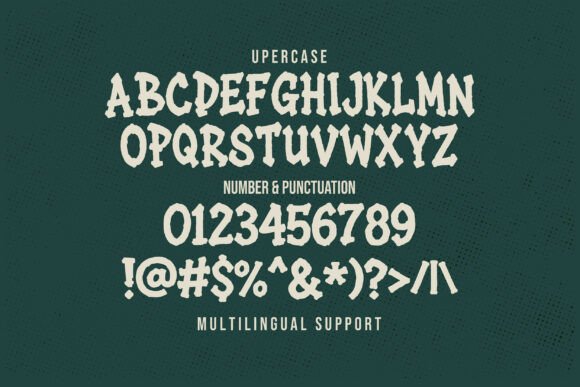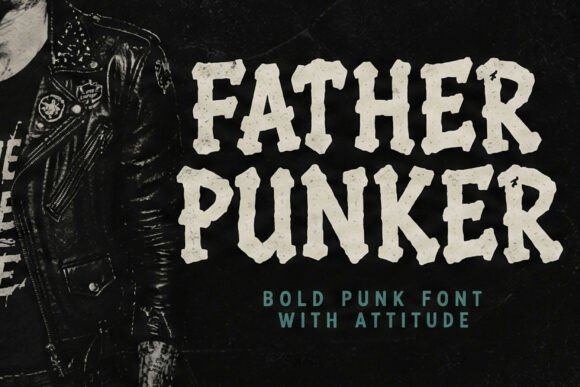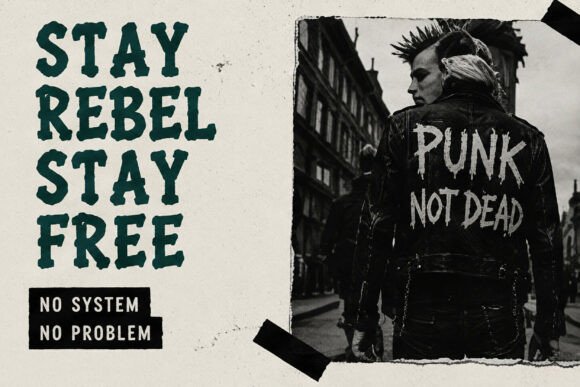
Introduction to Father Punker Font
Have you ever found yourself lost in the midst of a crowded music venue, surrounded by the electric energy of a live performance? The air is thick with anticipation, and the only thing that matters is the raw, unbridled power of the music. It’s moments like these that inspire creativity, and for designers, the Father Punker Font is the perfect tool to capture that essence.
As a design resource, the Father Punker Font stands out for its bold, distressed aesthetic that embodies the spirit of punk culture. With its high-quality design and transparent background, this font is perfect for any creative project that demands attention and impact. Whether you’re working on a music-related project or simply want to add some edge to your design, the Father Punker Font is a valuable addition to your toolkit.
Key Features of Father Punker Font
- Unique, bold, and edgy design style with a transparent background, perfect for adding a punk rock vibe to your designs
- Supports a wide range of languages and is suitable for use in various creative applications, including graphic design, digital art, and more
- Designed to be highly legible and readable, even at small font sizes, ensuring your message is conveyed effectively
Honest Review: Father Punker Font
As a designer, I’m always on the lookout for high-quality design resources to elevate my creative projects. The Father Punker Font is one such resource that caught my eye. With its unique punk-inspired aesthetic, this font is perfect for designers looking to add some edge to their designs.
What works well: ✨ The font is highly customizable, allowing designers to adjust the weight, spacing, and style to suit their needs. The transparent background option is also a great feature, making it easy to use this font in a variety of design scenarios.
Some limitations: ⚠️ The font may not be suitable for all design projects, particularly those that require a more subtle or traditional aesthetic. Additionally, the font’s punk-inspired style may not appeal to all designers.
- Unique punk-inspired aesthetic
- Highly customizable
The Father Punker Font is commonly used for designing logos, social media graphics, posters, flyers, brochures, presentations, and documents that require a bold and playful touch.